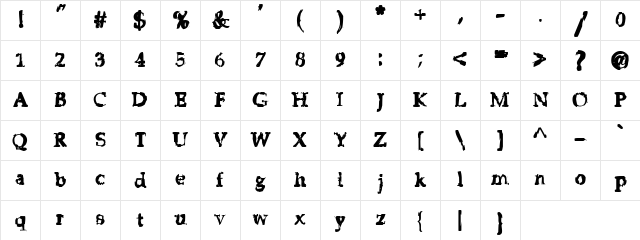
Strip Club Motion Sickness grunge deluxe Free Font
Strip Club Motion Sickness grunge deluxe
Design Context for Strip Club Motion Sickness
Strip Club Motion Sickness embraces imperfection - its rough, textured character adds raw authenticity to designs that want to feel lived-in and unconventional.
Pro Tip: Use Strip Club Motion Sickness at larger sizes where the texture and irregularity of each letterform can be clearly seen - it loses its character at small sizes.